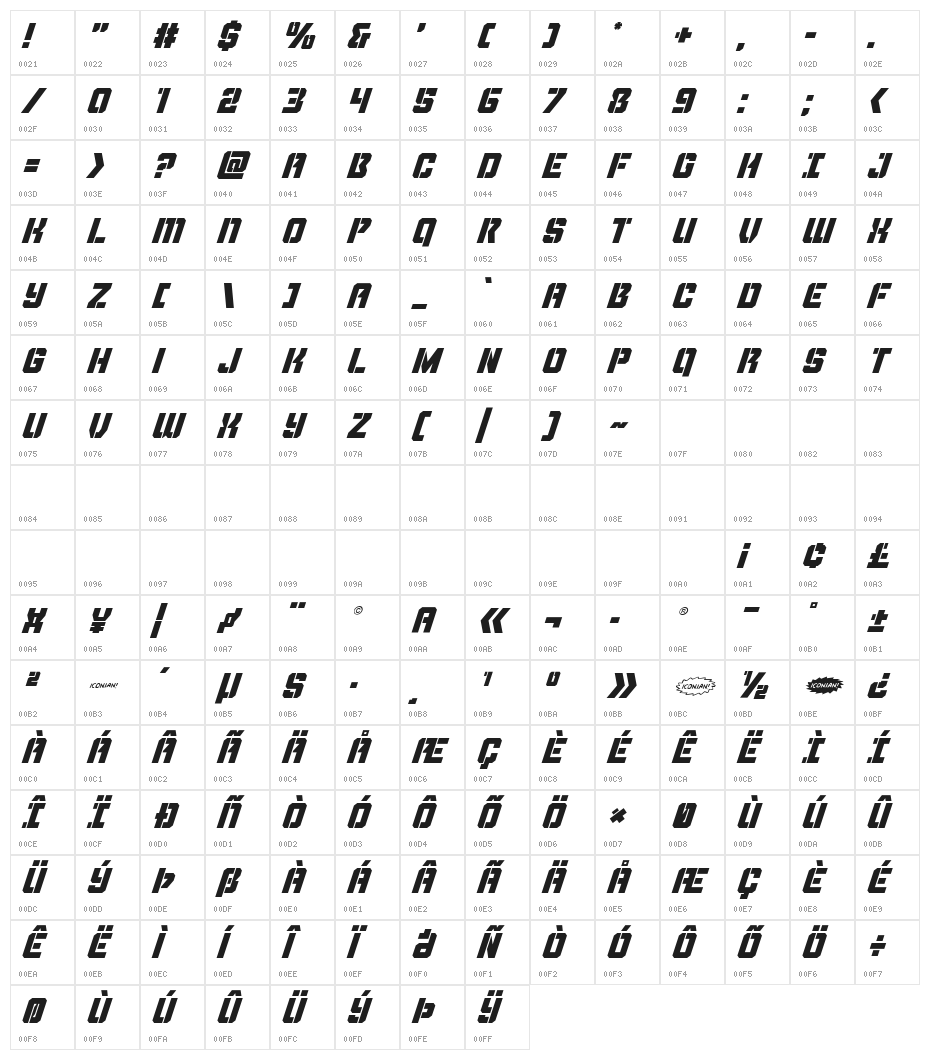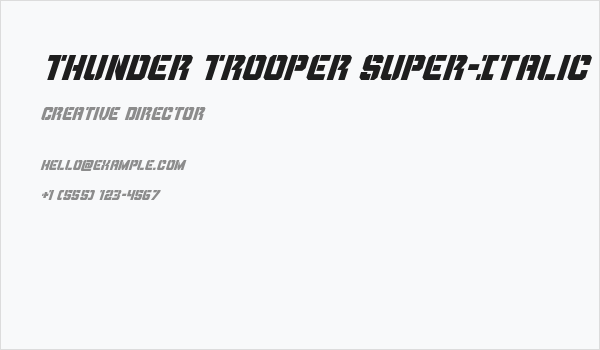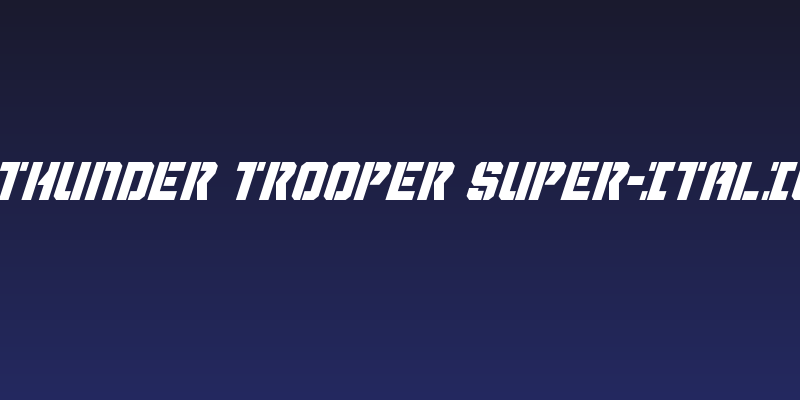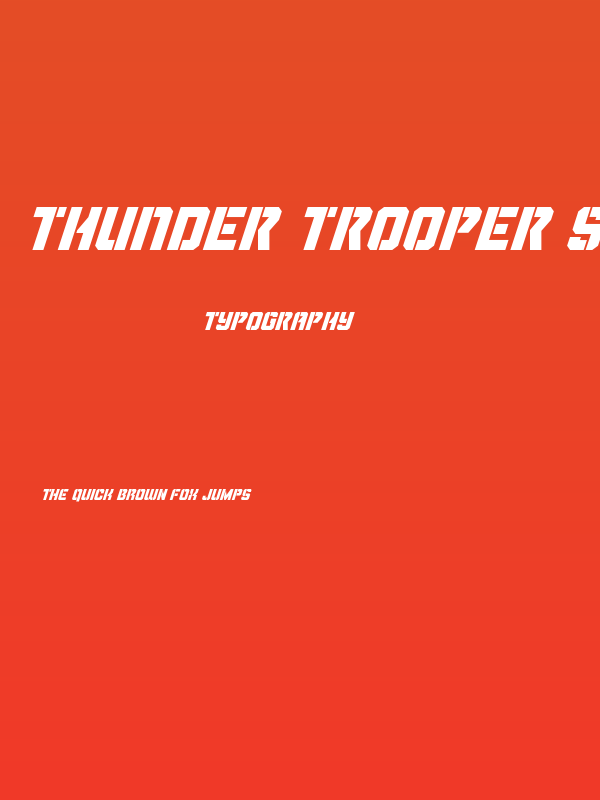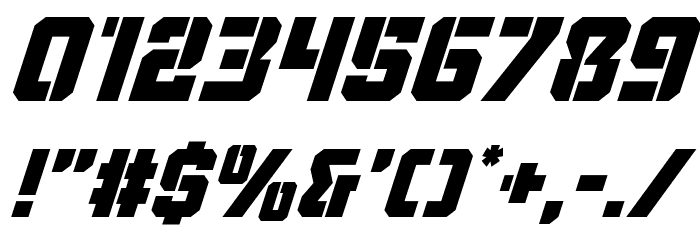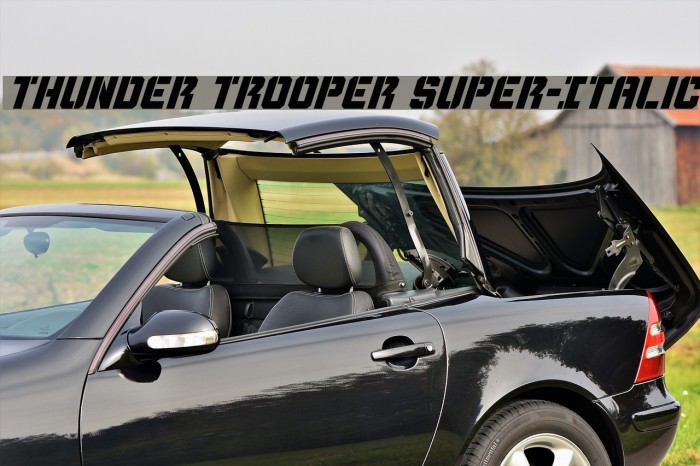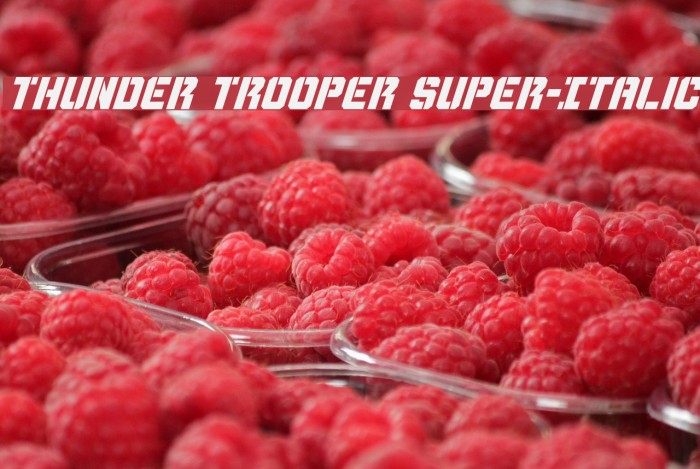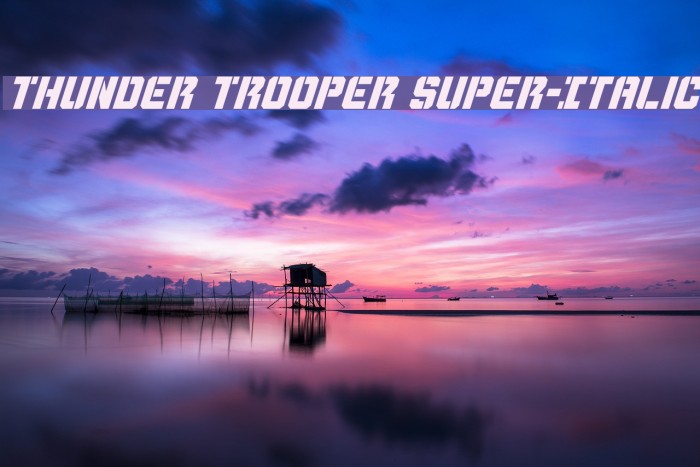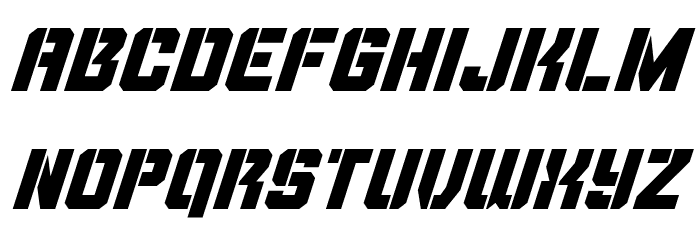
Thunder Trooper Super-Italic Font
Thunder Trooper Super-Italic Description
This font features a bold, italicized style with a futuristic and dynamic appearance. The characters are sharply angled, giving a sense of movement and speed. The strokes are thick and consistent, providing a strong visual impact. The design is geometric, with each letter having a distinct, blocky form that enhances readability while maintaining a unique aesthetic. The font is ideal for projects that require a modern and edgy look, such as technology-related branding or sports team logos. Its boldness and slant make it stand out, ensuring that any text set in this font will capture attention.
| Proposed Projects | Ideal for technology branding, sports logos, and dynamic headlines. |